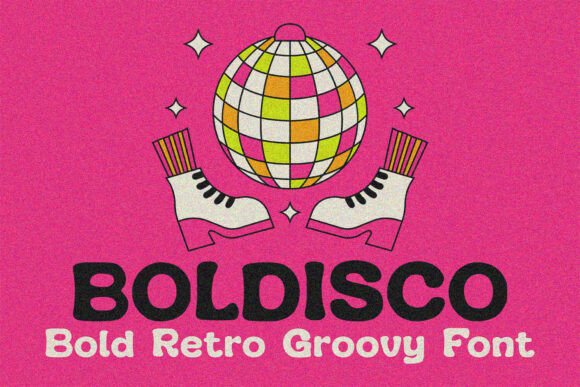
Getting Down with Boldisco: The Funky Retro Display Font You Need
I’ll never forget the struggle I faced while working on a vintage-themed poster project. My client wanted something that screamed 70s disco era, but I was stuck with a font that just didn’t cut it. The curves were dull, the lines were stiff, and the overall vibe was, well, boring. That’s when I stumbled upon Boldisco, a funky retro-inspired display font that completely transformed my design. With its bold curves, smooth lines, and playful rhythm, Boldisco captured the vibrant spirit of the 70s disco era while staying fresh and modern for today’s designs.
What Makes Boldisco Special?
Boldisco is more than just a font – it’s a design statement. Its unique character makes it perfect for projects that demand attention and a touch of nostalgia. Whether you’re creating eye-catching posters, bold headlines, stylish logos, album covers, event flyers, or fun social media graphics, Boldisco delivers the perfect balance of boldness and flair.
My Honest Review of Boldisco
- ✨ Retro charm: Boldisco’s got that unmistakable 70s vibe that’s perfect for vintage-themed projects.
- ✅ Ease of use: The font is incredibly easy to work with, even for those who aren’t font experts.
- 💥 Attention-grabbing: Boldisco’s bold curves and smooth lines make it impossible to ignore.
- 🎉 Versatility: Use it for posters, logos, social media graphics, and so much more.
⚠️ While Boldisco is an amazing font, it’s not suitable for body text or long paragraphs. Its boldness works best for headlines and titles. 🤔 Additionally, some users may find the font a bit too playful for certain projects, but that’s also part of its charm!
The Story Behind Boldisco
Boldisco was inspired by the vibrant spirit of the 70s disco era. Its designer, a typography enthusiast, wanted to create a font that captured the energy and playfulness of that iconic era. With its bold curves, smooth lines, and playful rhythm, Boldisco is the perfect blend of retro charm and modern style.
Q: What type of projects is Boldisco best suited for?
A: Boldisco is perfect for projects that demand attention and a touch of nostalgia, such as posters, logos, social media graphics, and more.
Q: Can I use Boldisco for body text or long paragraphs?
A: While Boldisco is an amazing font, it’s not suitable for body text or long paragraphs. Its boldness works best for headlines and titles.
Q: Is Boldisco easy to use?
A: Absolutely! Boldisco is incredibly easy to work with, even for those who aren’t font experts.